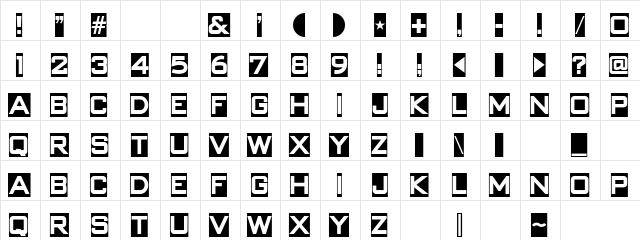
Crazy Boys Regular
Design Context for Crazy Boys Typeface
Crazy Boys is a composed and adaptable typeface that performs quietly and consistently across a wide range of design contexts.
Pro Tip: Use Crazy Boys in both headline and body roles to test its range before committing to a single application.